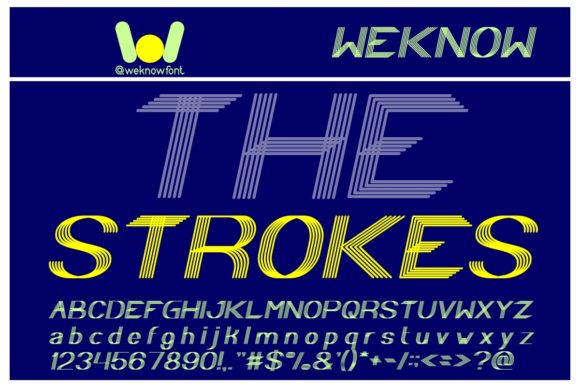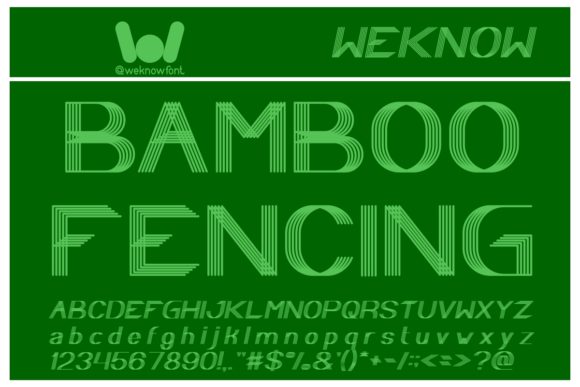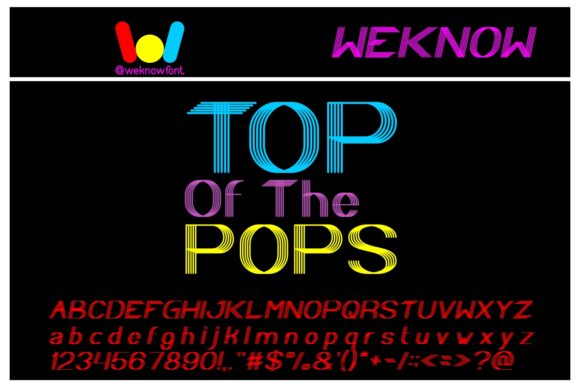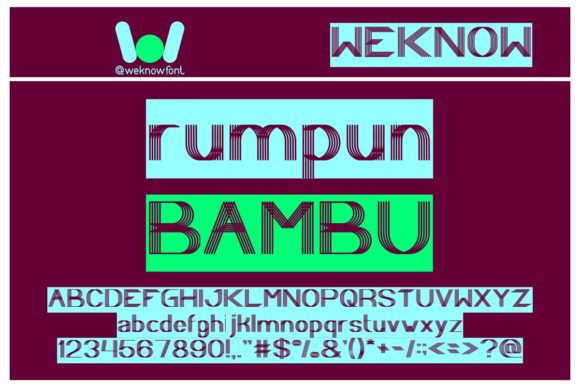
Introduction to Play Ground Font
Have you ever stared at a blank canvas, waiting for inspiration to strike? It’s that moment when creativity flows, and the possibilities seem endless. For designers, this is a familiar feeling – the thrill of bringing a new idea to life. And what’s the perfect companion for this creative journey? A font that adds a touch of magic to your designs.
Enter the Play Ground Font, a stylish and unique display font that’s sure to elevate your next project. With its playful flair and versatility, this font is perfect for adding a creative touch to posters, thank you cards, quotes, greeting cards, logos, business cards, and more. Whether you’re working on a personal or professional project, the Play Ground Font is a valuable design resource that’s sure to make your work stand out.
- Designed with a modern aesthetic, perfect for creative projects that require a unique and eye-catching font.
Honest Review: Play Ground Font
One of the things that stands out about this font is its versatility. I used it for a creative project and was able to easily customize it to fit my needs. It’s also great for using on a transparent background, which can really make your design pop.
Here are some of the things that I like about the Play Ground Font:
- High quality design
- Easy to customize
- Works well on transparent backgrounds
Of course, like any design resource, the Play Ground Font isn’t perfect. One thing that I didn’t like was the limited number of font styles available. ⚠️ This might be a problem for designers who need a wide range of options.
Tips for Getting the Most Out of Play Ground Font
Some tips for getting the most out of Play Ground Font include using it in combination with other design elements, such as images and graphics, to create a unique and eye-catching design. You can also experiment with different font sizes, colors, and styles to create a visually appealing effect.
Play Ground Font is suitable for a variety of creative projects, including graphic design, digital art, web design, and even branding. You can use it to create logos, business cards, brochures, and other marketing materials. The font’s transparent background makes it perfect for creating designs with a sense of depth and dimension.